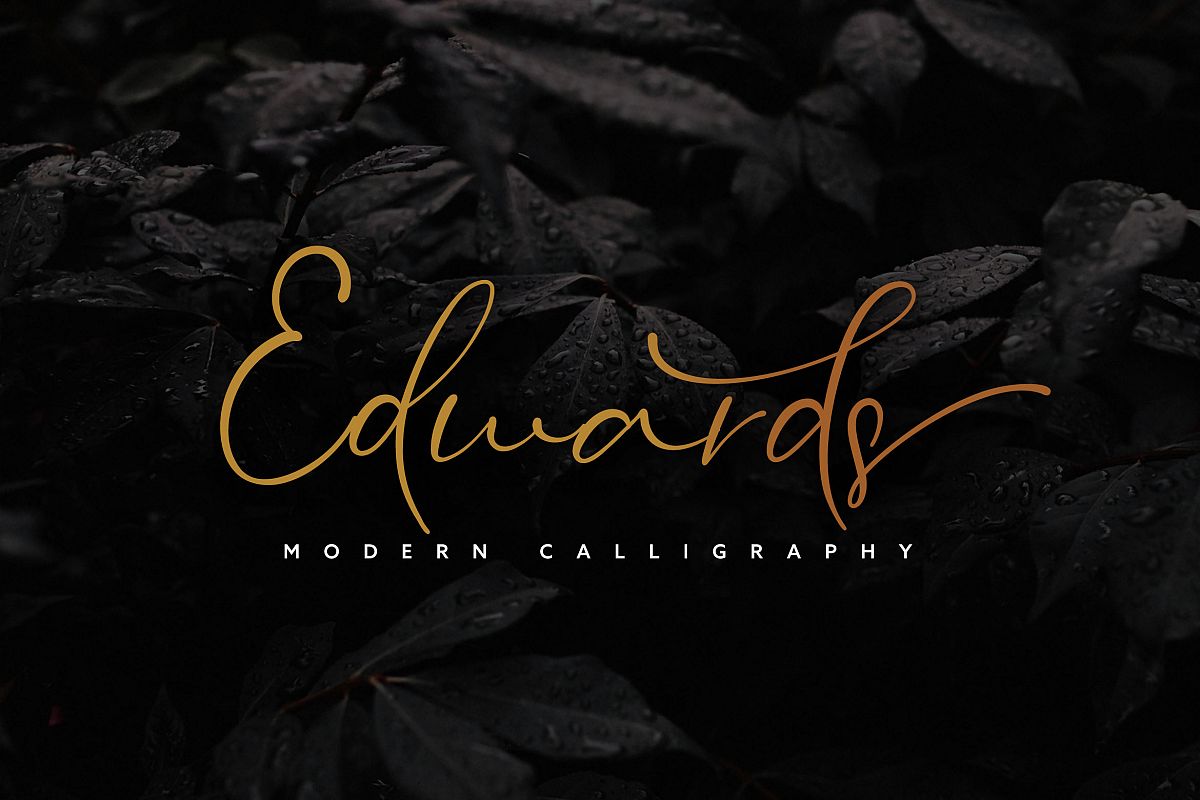
Edwards Casual Stylish
Edwards is a stylish modern calligraphy font with casual chic flair. it is perfect fo branding, wedding invites and cards, and labels
Edwards includes full set of lovely uppercase and lowercase letters, multilingual symbols, numerals, punctuation and ending lowercase.